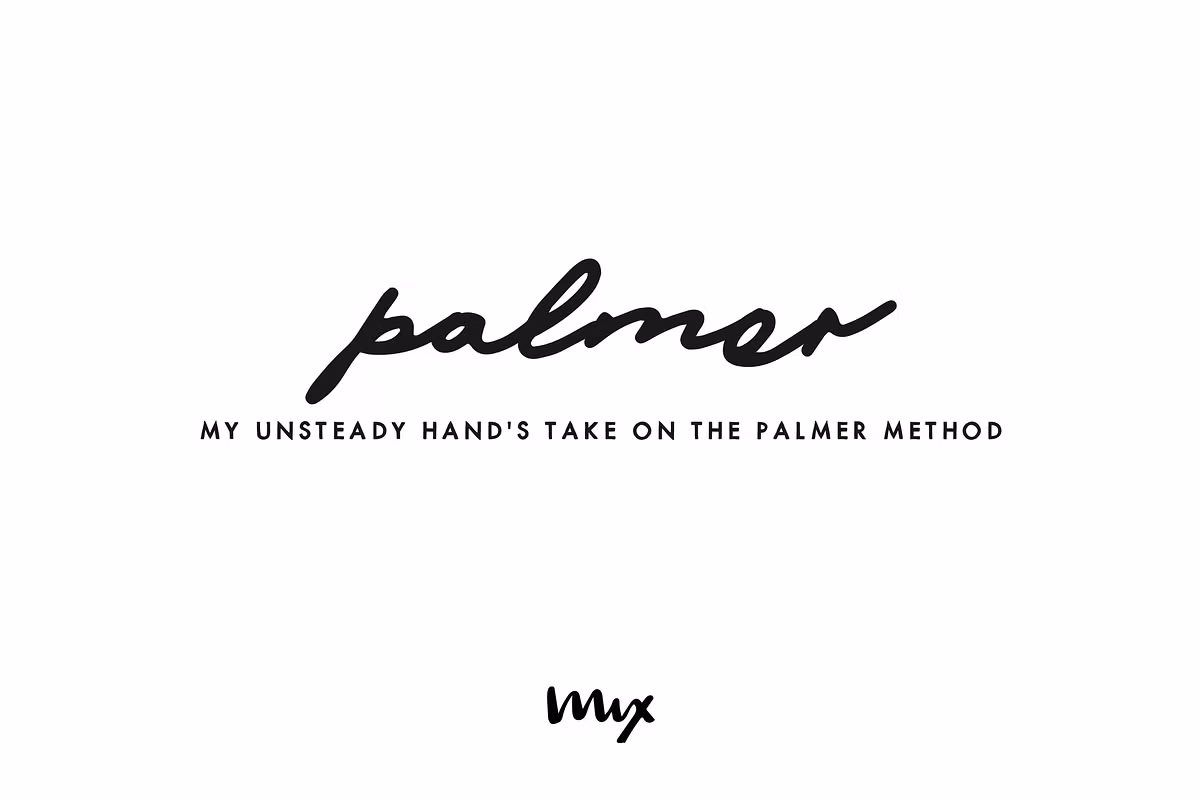
Palmer An Unsteady Palmer Method Font Free Download is a charmingly imperfect script typeface inspired by classic penmanship education styles—specifically, the historic Palmer Method. With its slightly shaky strokes and authentic handwritten texture, this font brings a nostalgic, personal feel to any design.
Perfect for vintage-inspired projects, journals, educational materials, greeting cards, and branding with a touch of retro flair, Palmer balances elegance with character. It mimics the look of careful cursive practice—complete with natural inconsistencies that enhance its human touch.